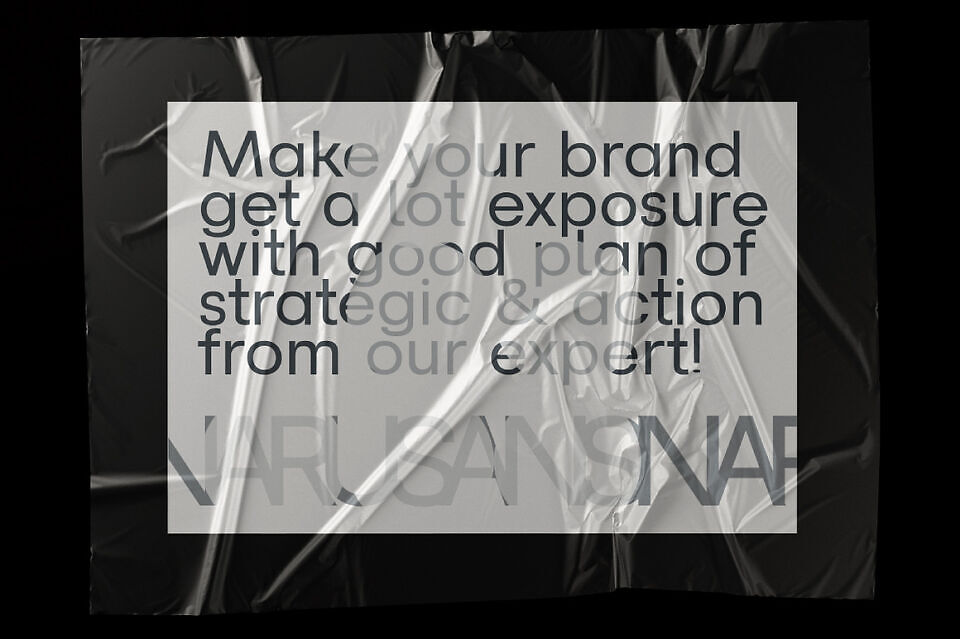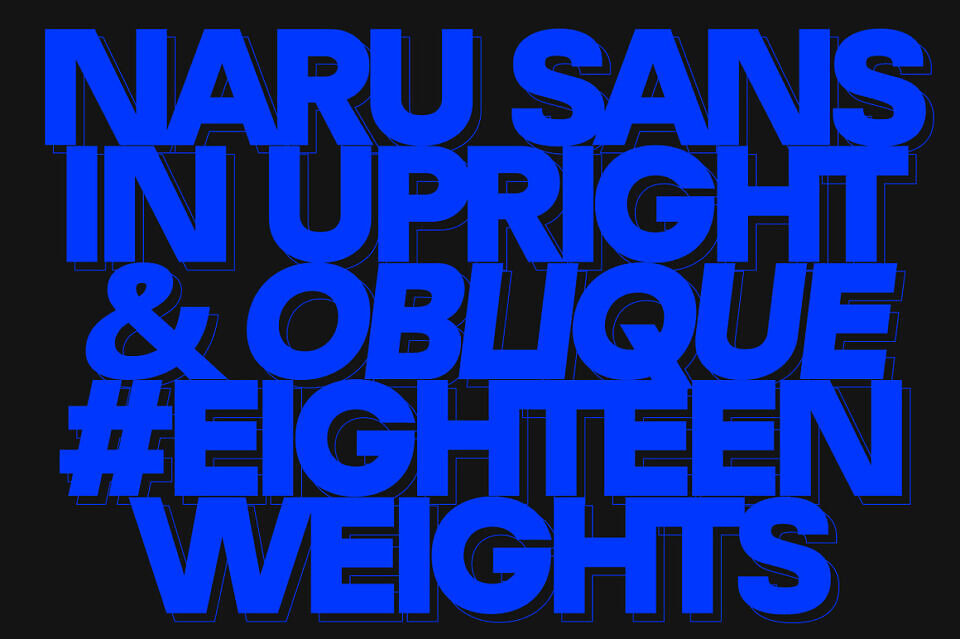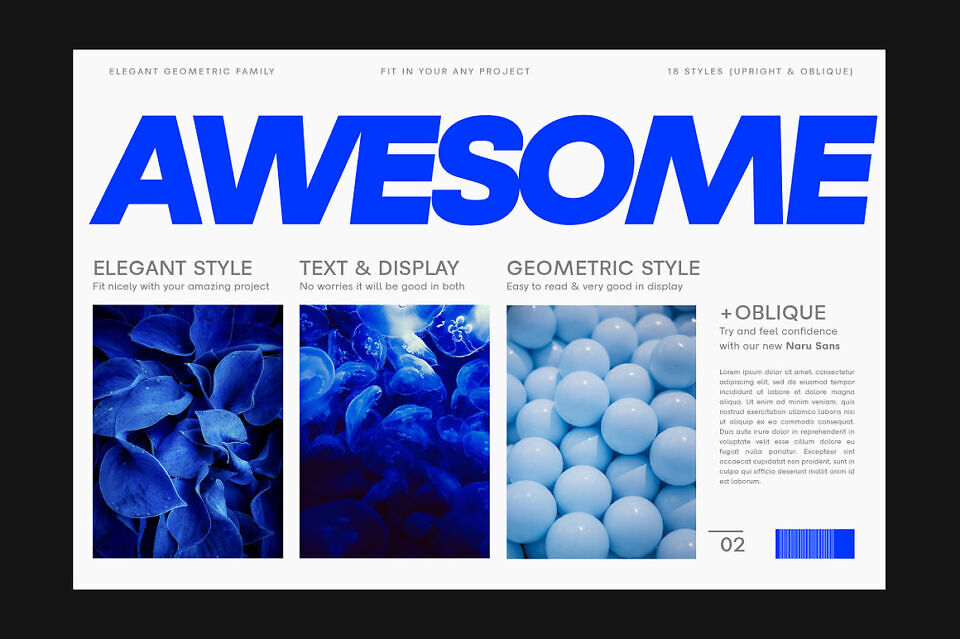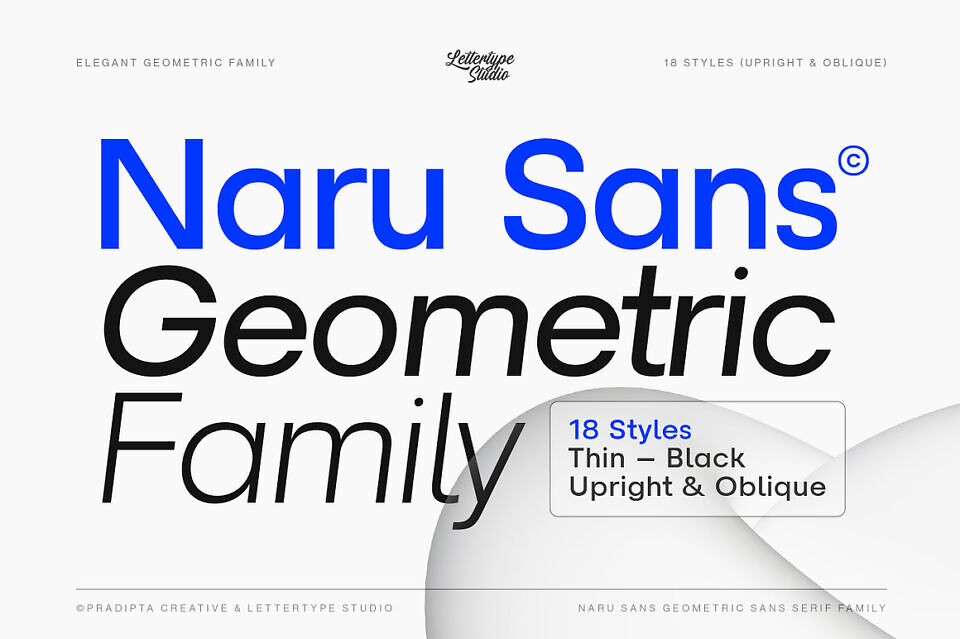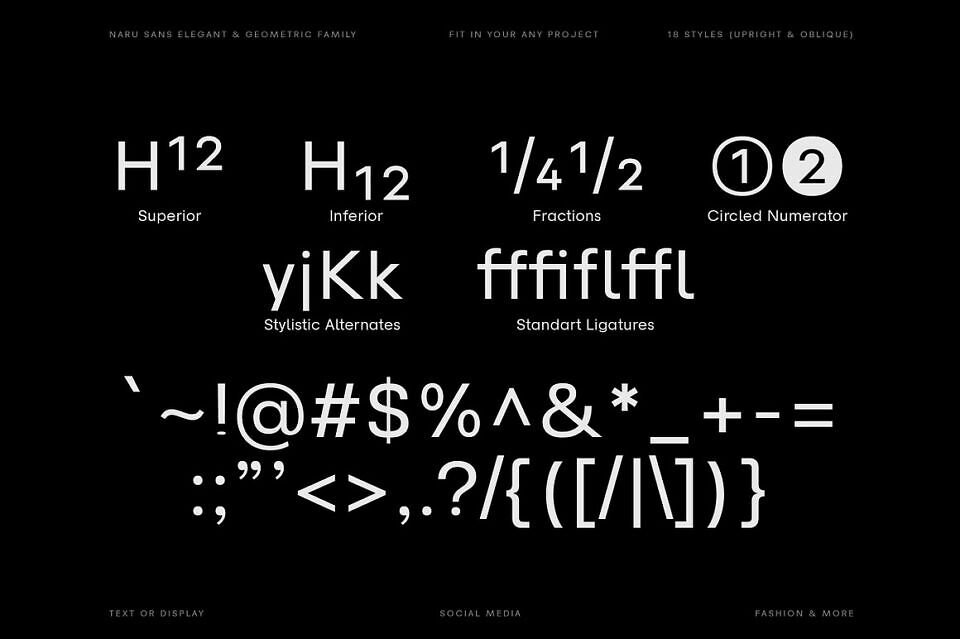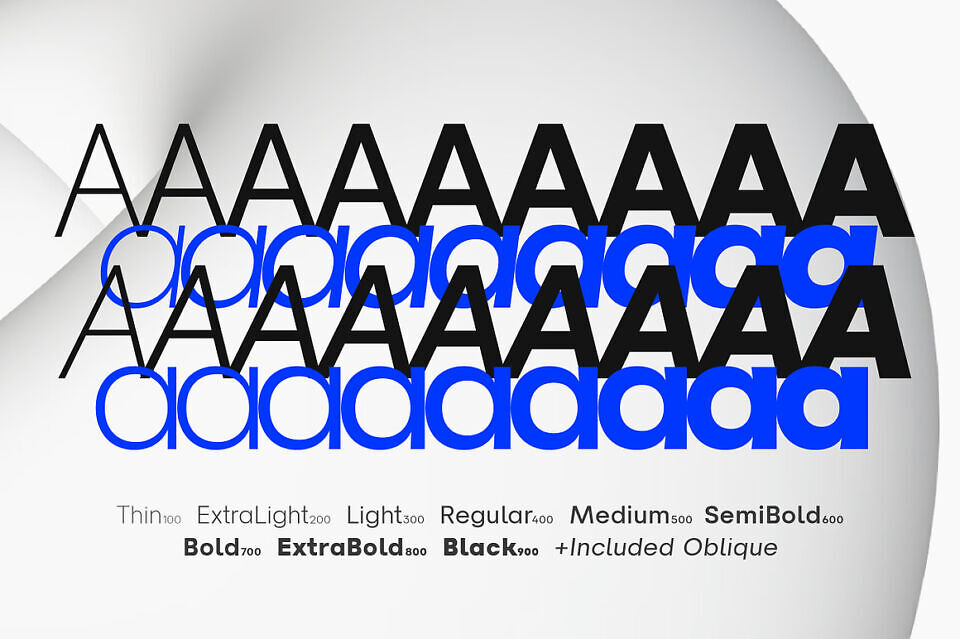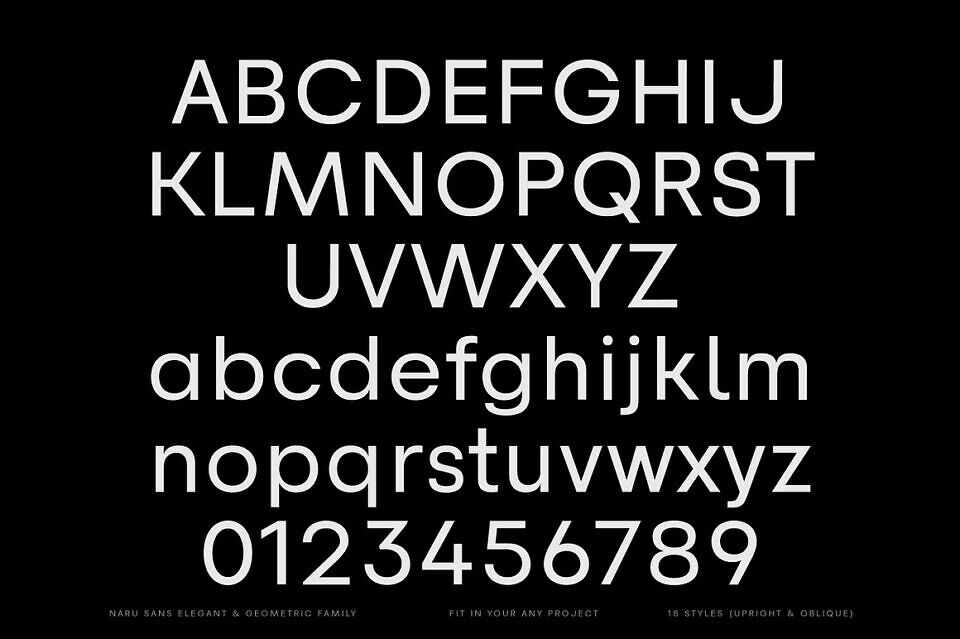
Naru Sans is a modern and versatile sans-serif geometric typeface infused with subtle grotesque elements, that delivers simplicity and natural while exuding a strong personality with refined proportions. Designed for readability and versatility, this font family balances clean, geometric precision with the warmth and flexibility of grotesque design.
There is a wide range of weights, from thin to black, including 18 weights and oblique style. Opentype features include stylistic alternates (K, j, k, & y), figure variations (superiors, inferiors, fractions, circled numerators, and standard ligatures), and broad Latin language support.
These geometric grotesque fonts are crafted with impeccable legibility and sleek, seamless, aesthetic appeal. They are clean, modern, and versatile options for any project like fashions, print design, social media, creatives, branding, UI/UX, web typography, packaging, or editorial design. It will elevate your creative projects and keep your designs on-trend.